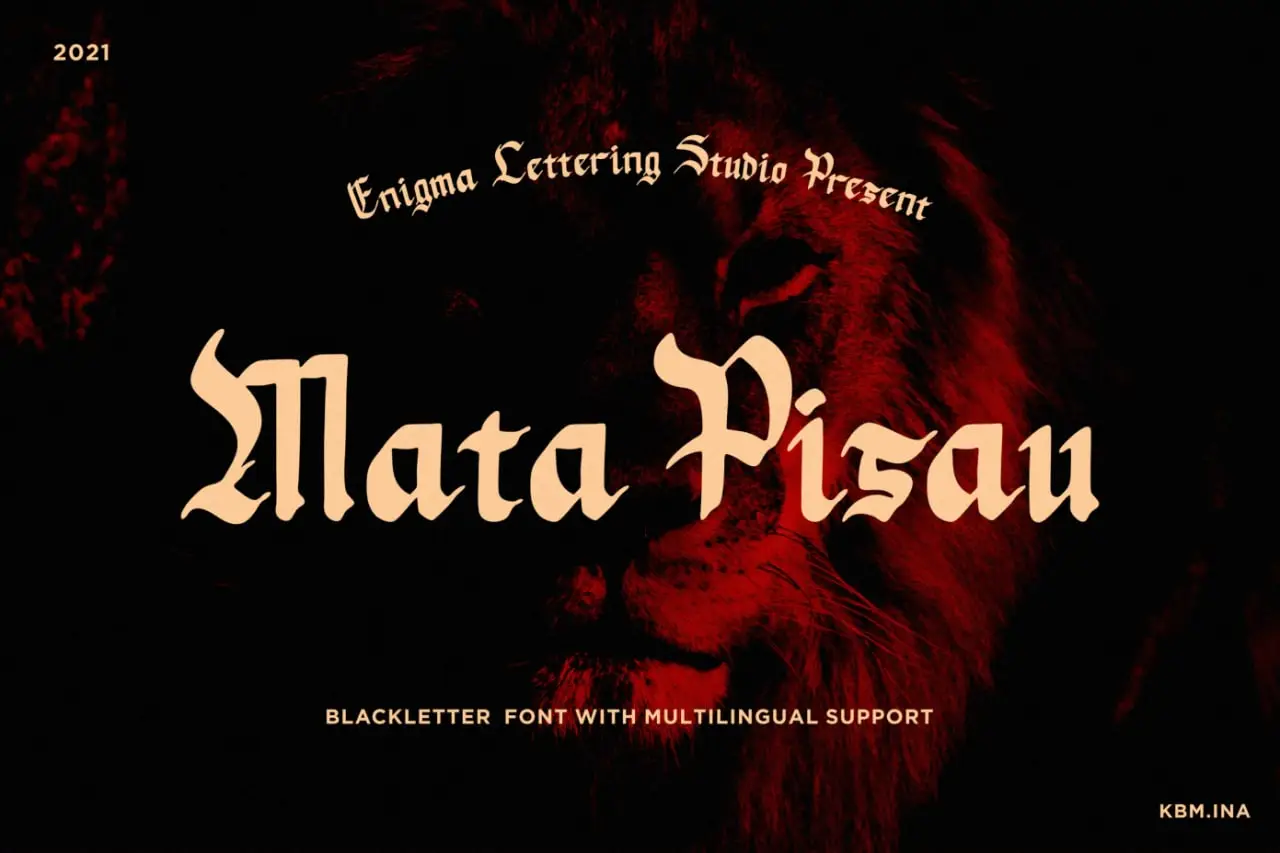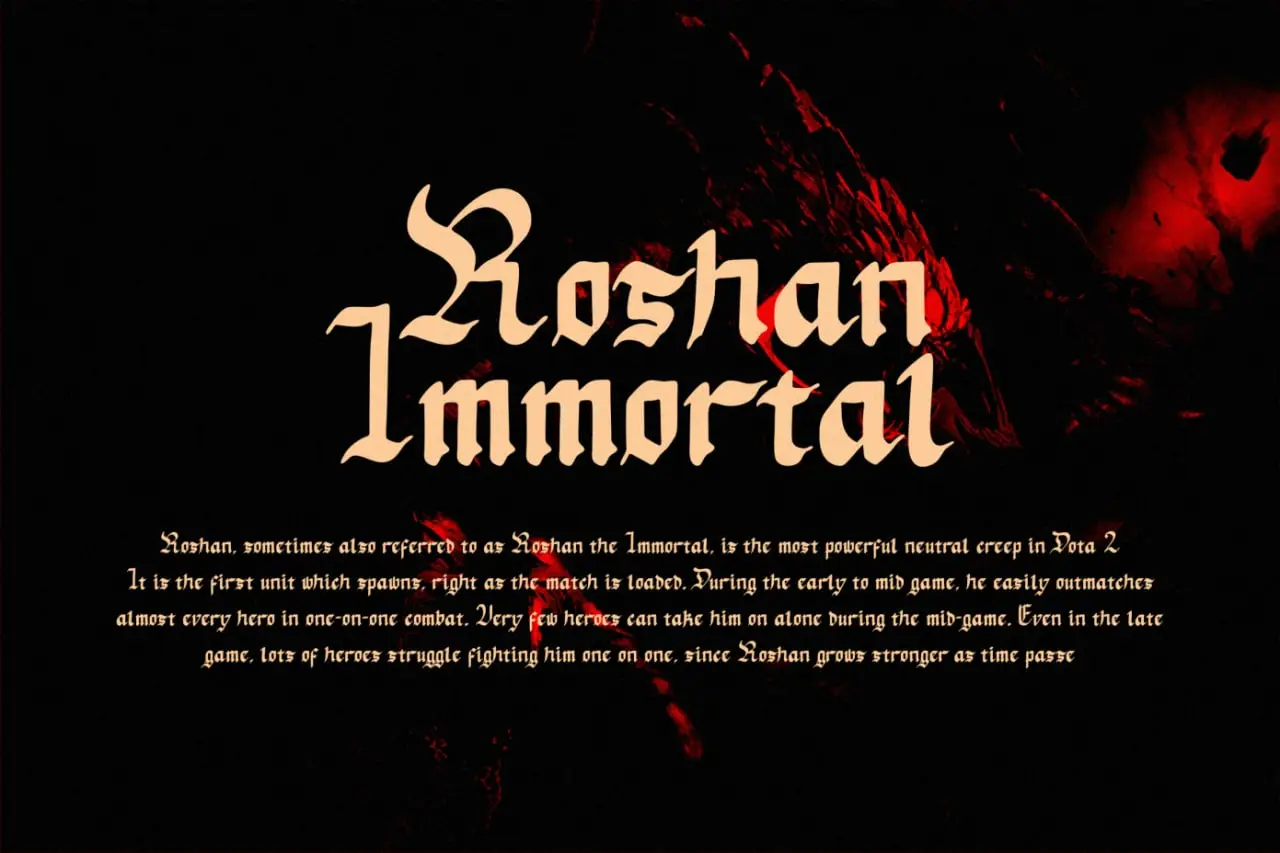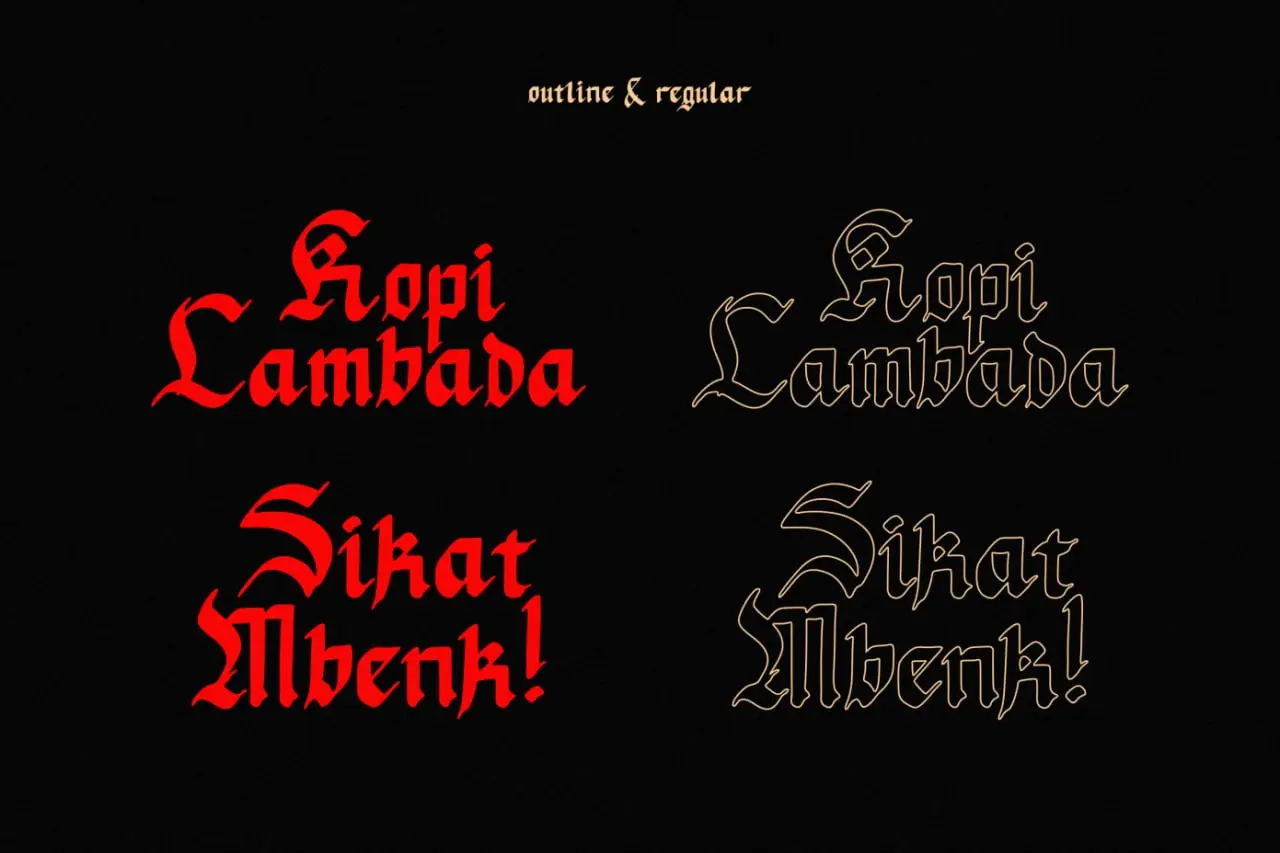
Enigma Lettering Studio-Mata Pisau Font
The Enigma Lettering Studio-Mata Pisau Font is a unique typeface that captures the essence of modern design with its artistic flair. This font features a blend of elegance and creativity, making it perfect for various applications.
• Multiple weights for versatile use
The Mata Pisau Font is ideal for branding projects, logos, web design, print materials, and user interfaces. Its distinctive style will make your designs stand out.